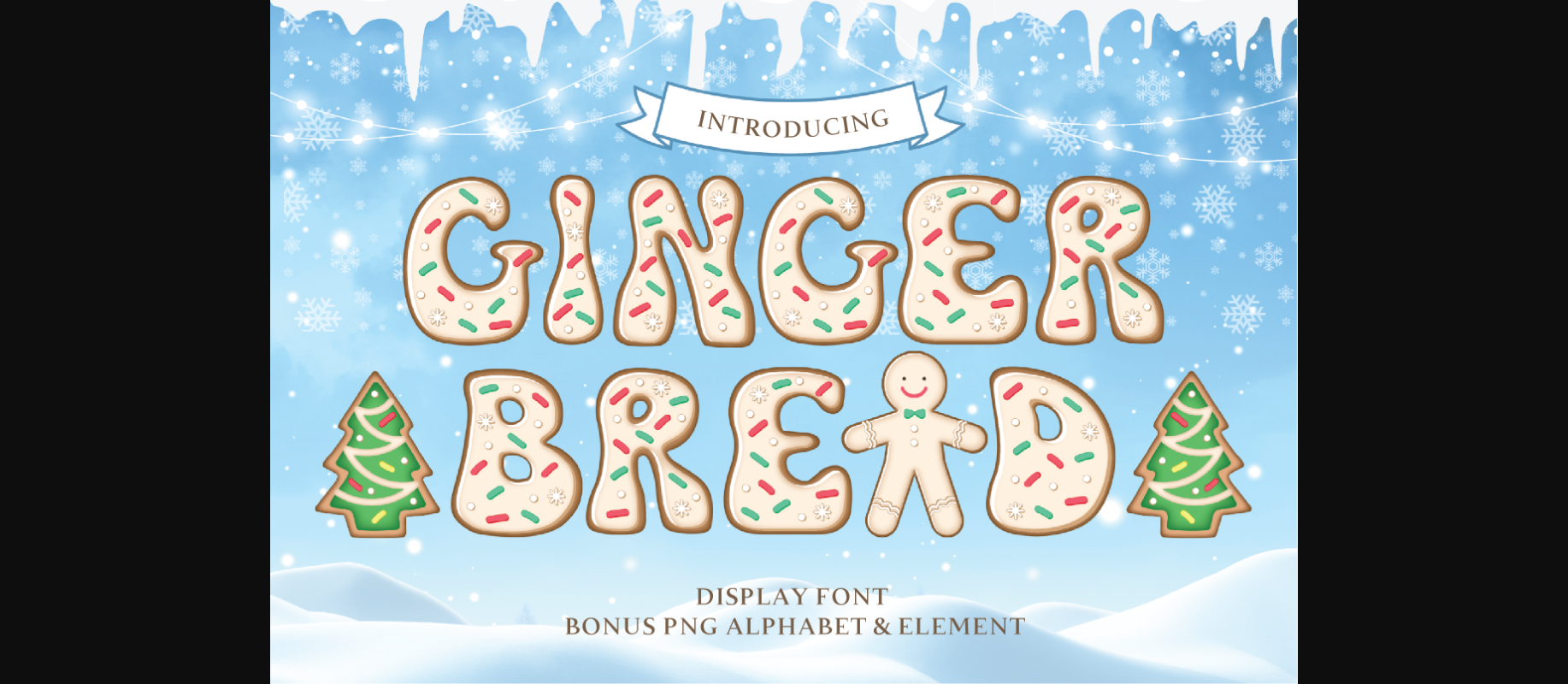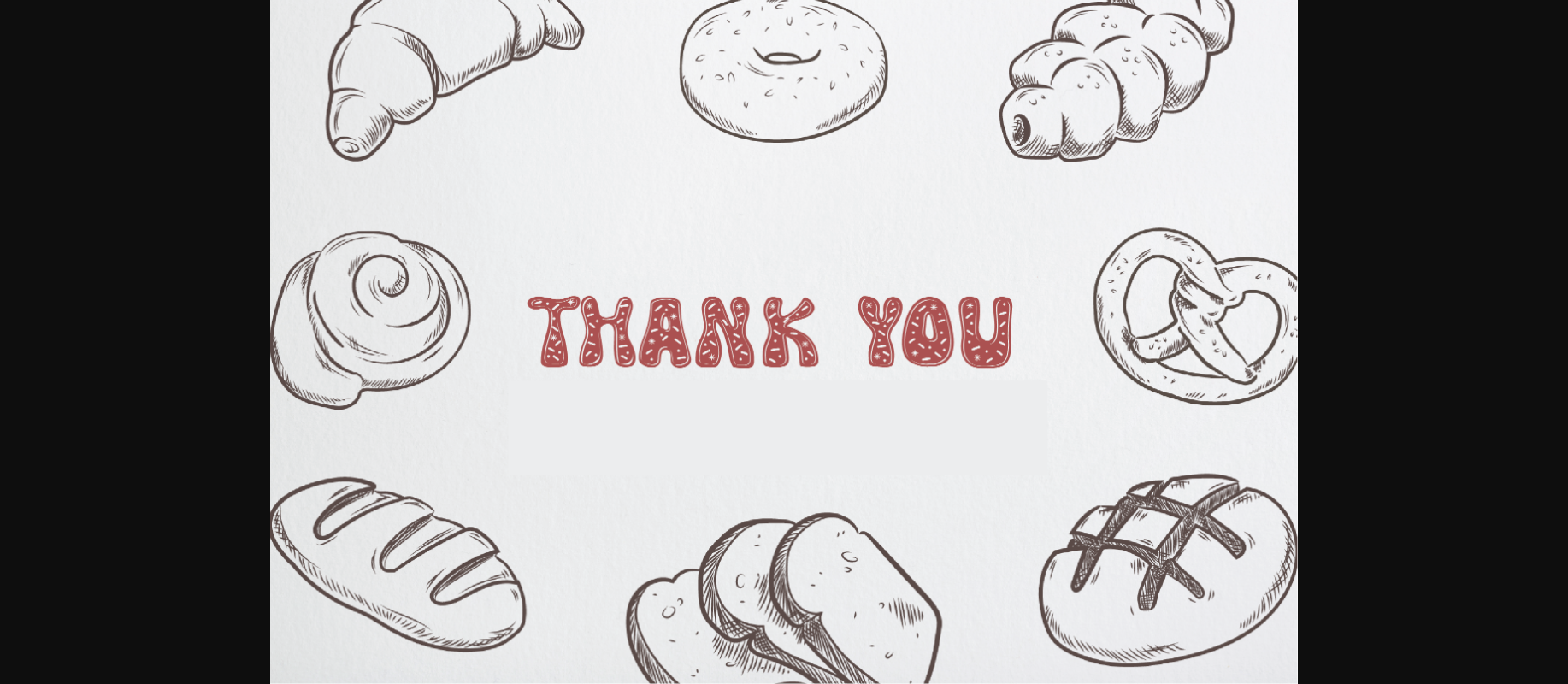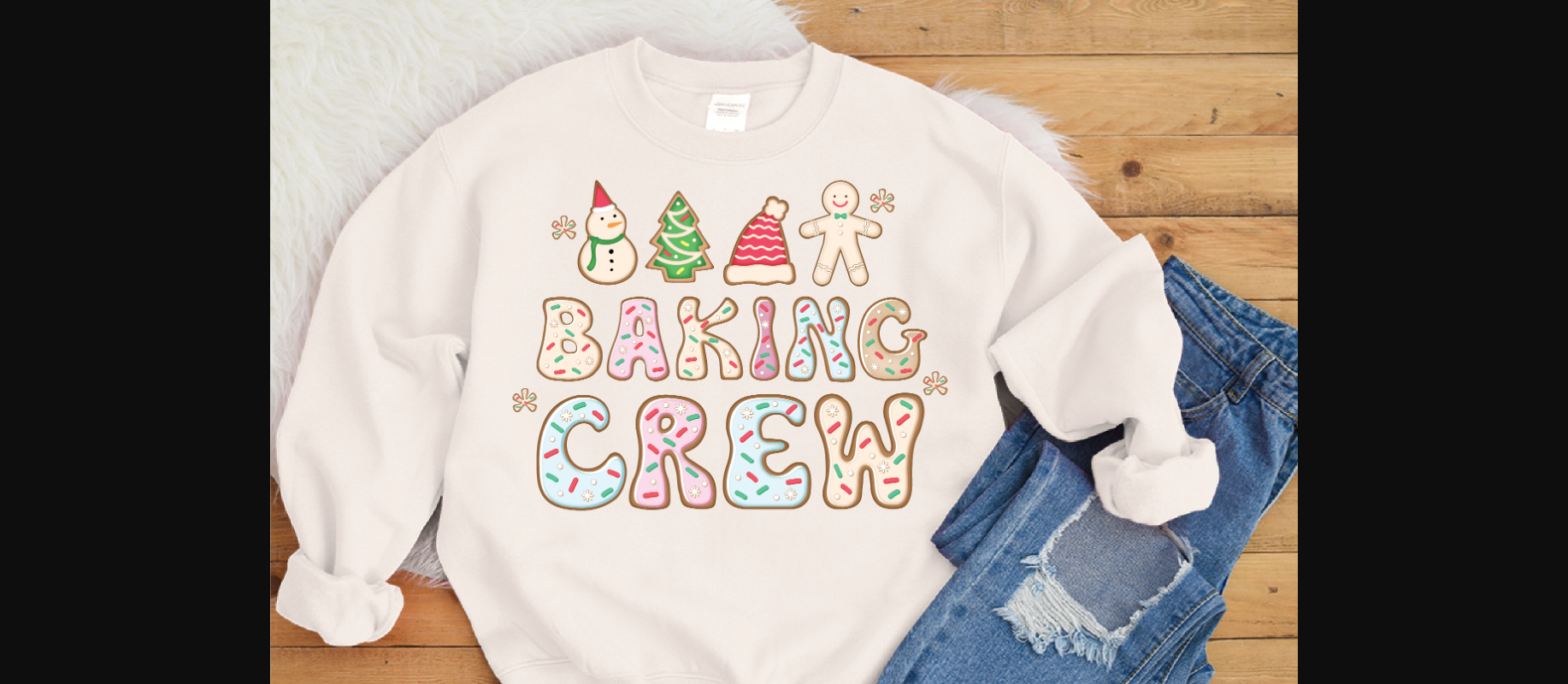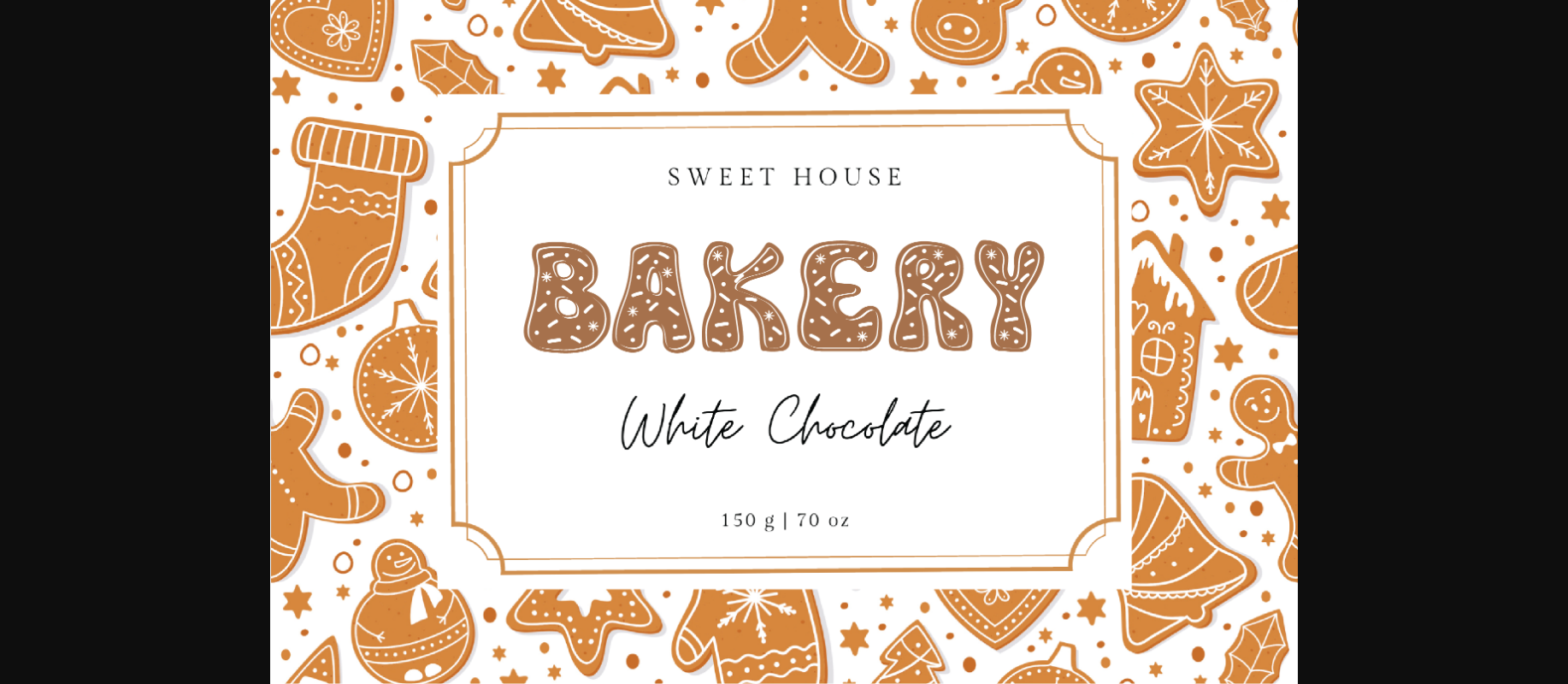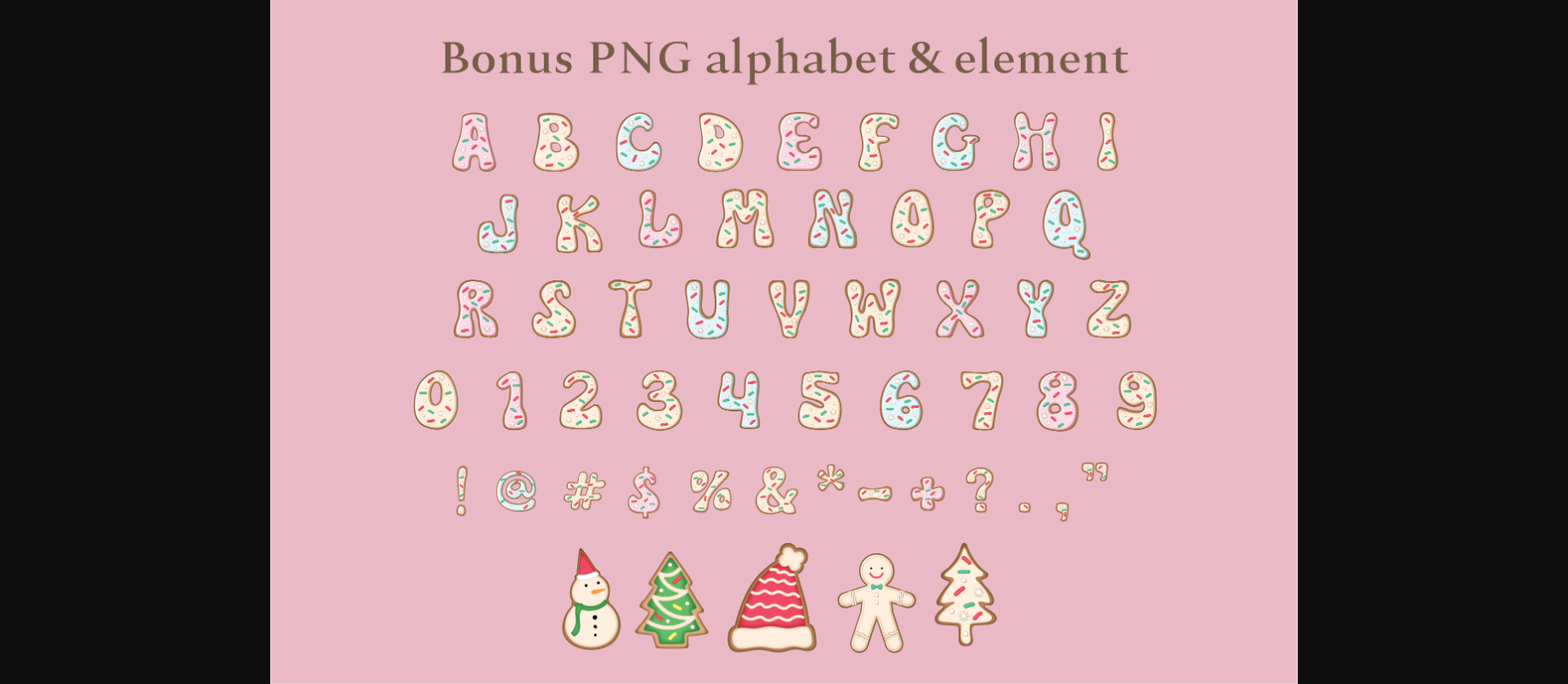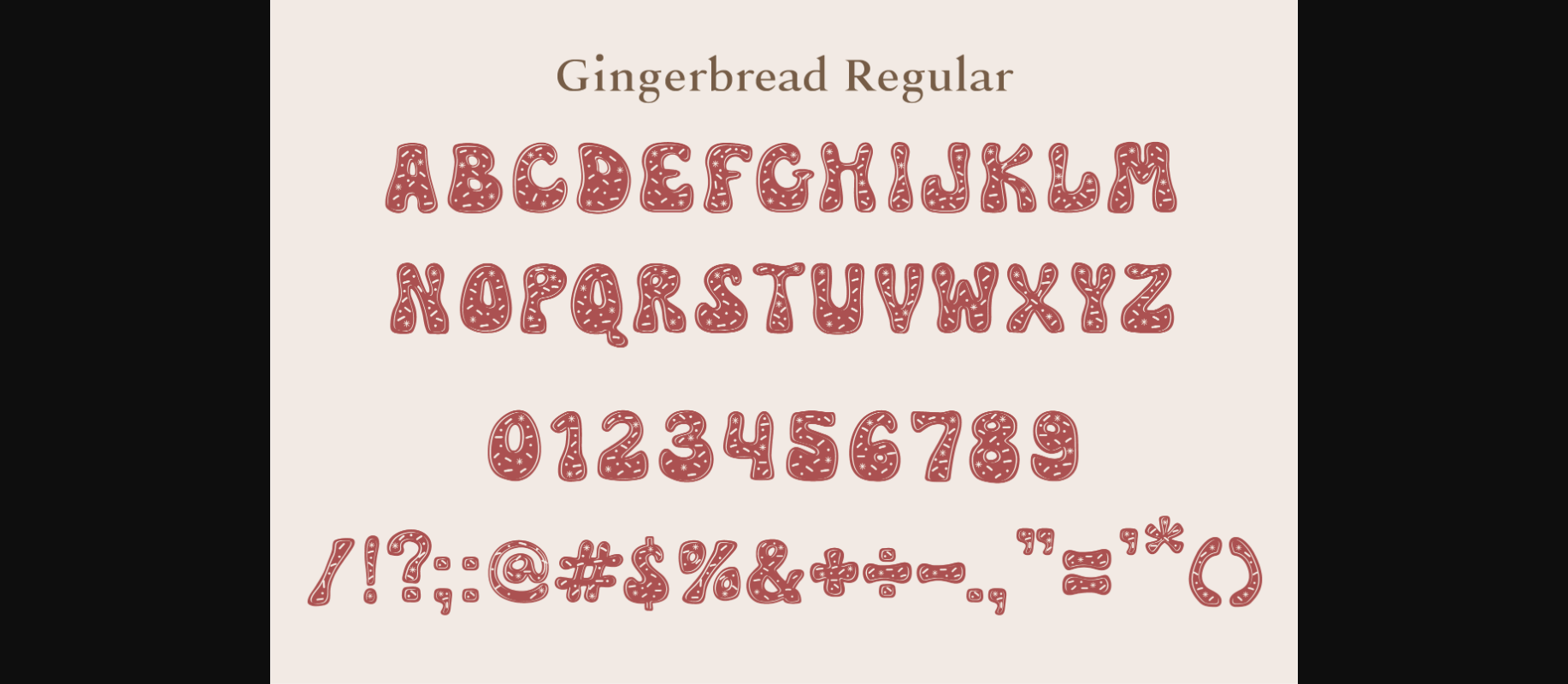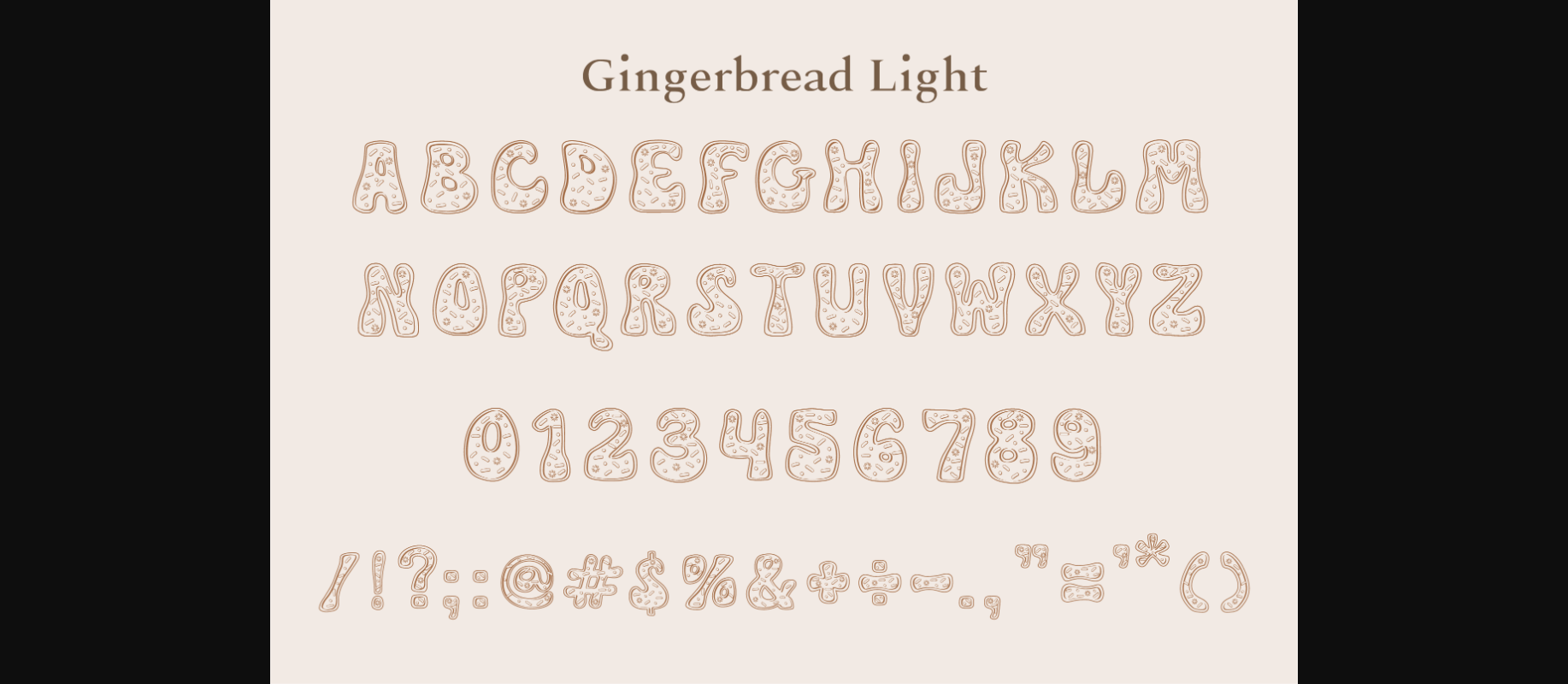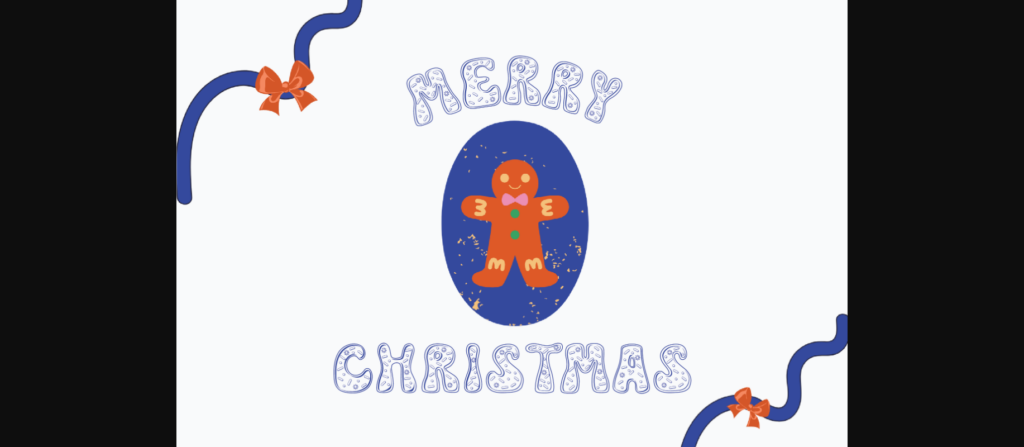
HomeDecorative FontsGingerbread Font Decorative Fonts Gingerbread Font FacebookXPinterestWhatsApp 1 of 10 ... Gingerbread Font Poster 2... Gingerbread Font Poster 3... Gingerbread Font Poster 4... Gingerbread Font Poster 5... Gingerbread Font Poster 6... Gingerbread Font Poster 7... Gingerbread Font Poster 8... Gingerbread Font Poster 9... Gingerbread Font Poster 10... About Gingerbread Font Gingerbread font is festive and fun for school projects celebrating Christmas and easy to present every artwork. DOWNLOAD NOW People also explored Selliana Font Angelica Angelina Font Botes Frica Font Planner Font Valerina Font Interior Kitchen Font Spooky Mummy Font Siestha Font Vintage Memory Font 287 0 TagsGingerbread Font Previous articleMorning Love FontNext articleBe Mine Font LEAVE A REPLY Cancel reply Comment: Please enter your comment! Name:* Please enter your name here Email:* You have entered an incorrect email address! Please enter your email address here Website: Save my name, email, and website in this browser for the next time I comment. Personal Use Free Folgore Personal Use Free Read more about this font Genres Personal Use Free Read more about this font Bosque Font Personal Use Free Read more about this font The Most Beautiful Gift Personal Use Free Read more about this font BLOG How to Install and Use Fonts on Windows, macOS, and Web Projects How to Install and Use Fonts on Windows, macOS, and Web Projects Fonts are a crucial part of design and branding. Whether you’re designing a... Elegant Wedding Invitation Fonts – Handwritten & Script Fonts Free Fonts Risk: Why Free Fonts Can Be Dangerous for Designers 5 Fonts That Will Dominate Design Trends in 2026